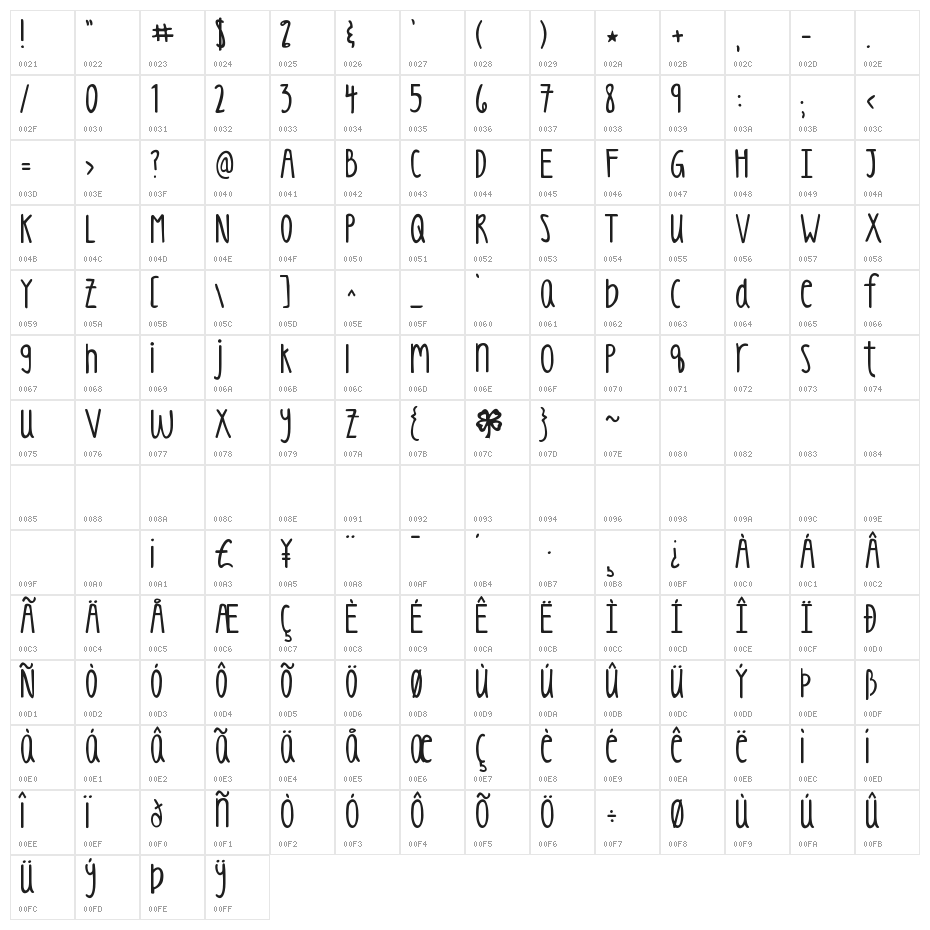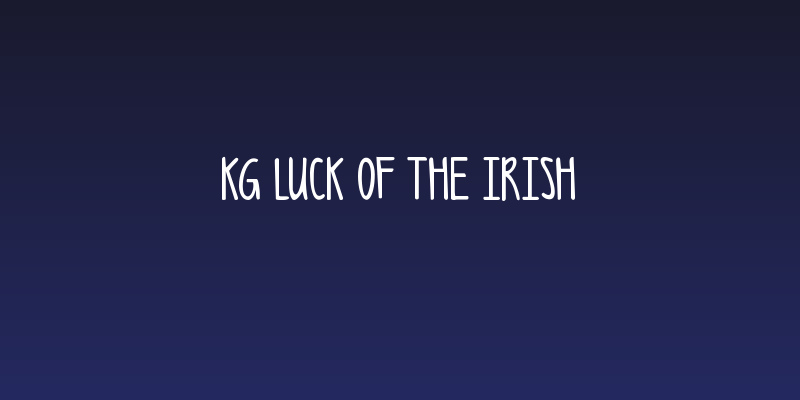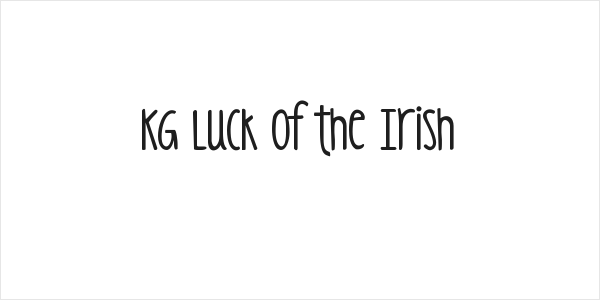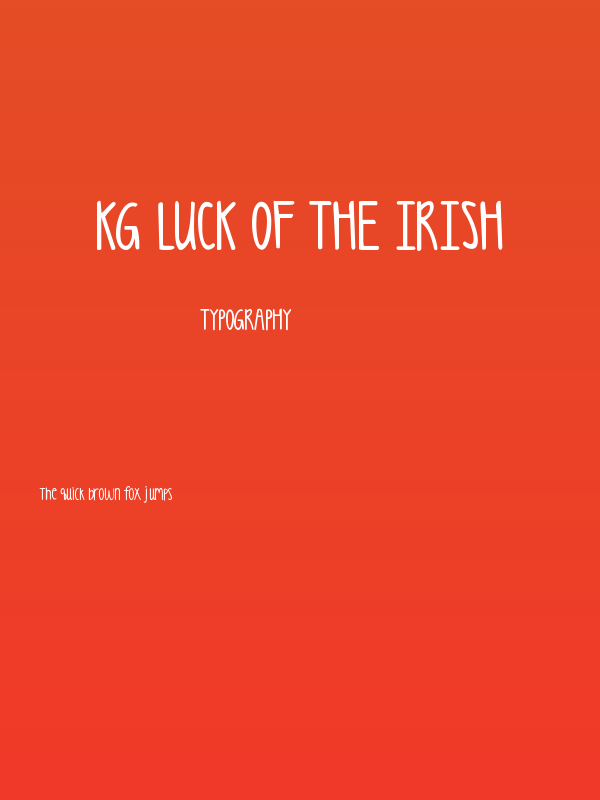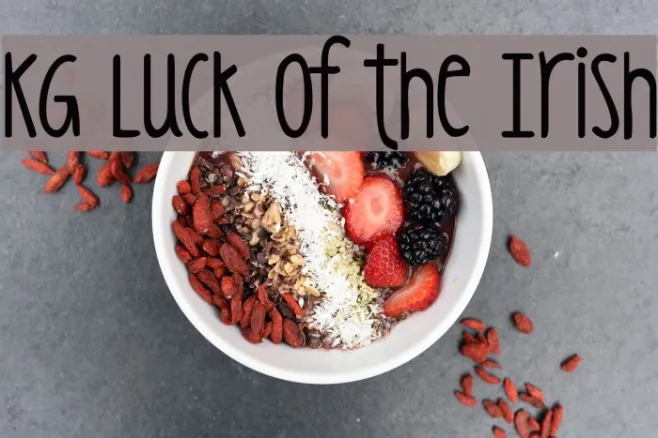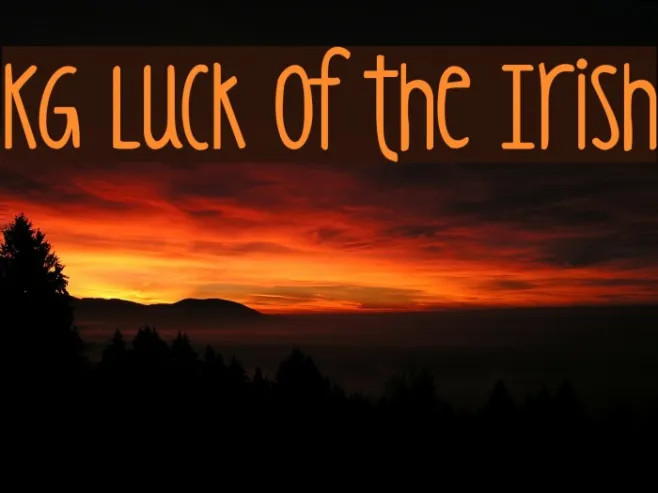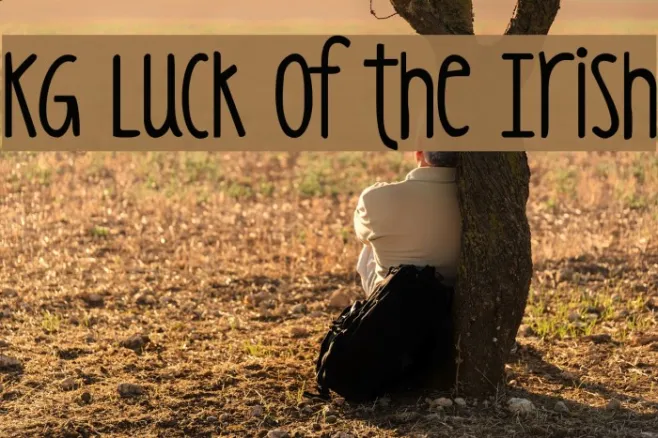
KG Luck of the Irish Font
KG Luck of the Irish Description
This font features a playful and whimsical style, characterized by tall, narrow letters with rounded edges. The uppercase and lowercase letters maintain a consistent height, giving it a uniform appearance. The strokes are smooth and slightly irregular, adding a hand-drawn feel. The numbers and special characters follow the same playful aesthetic, making it suitable for creative and informal projects. Its unique charm and friendly appearance make it stand out, while still being legible and versatile.
| Proposed Projects | Ideal for children's books, greeting cards, playful branding, and casual invitations. |